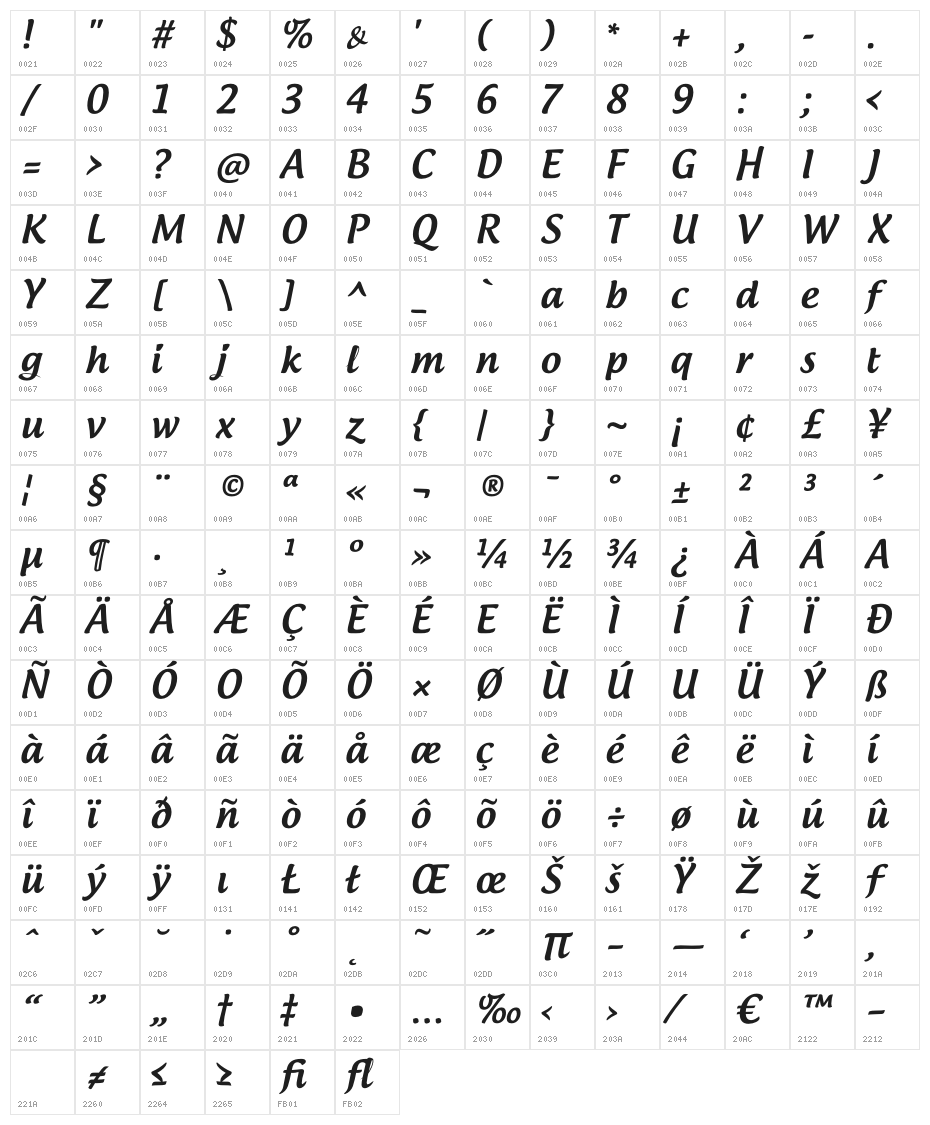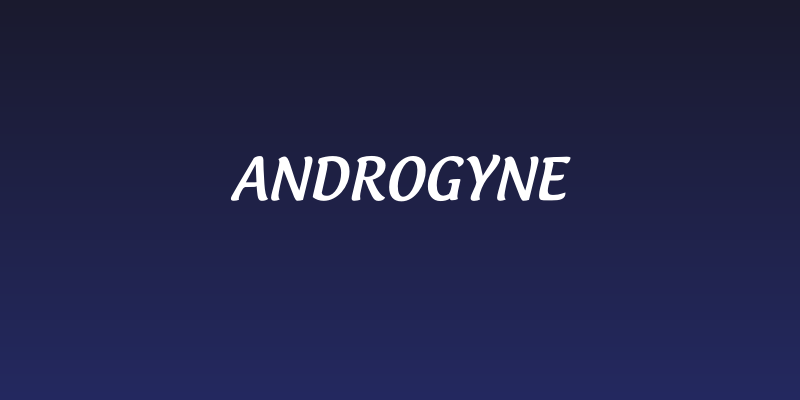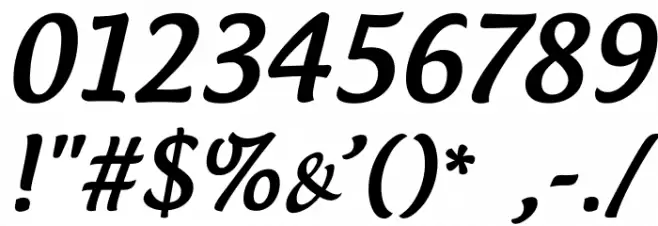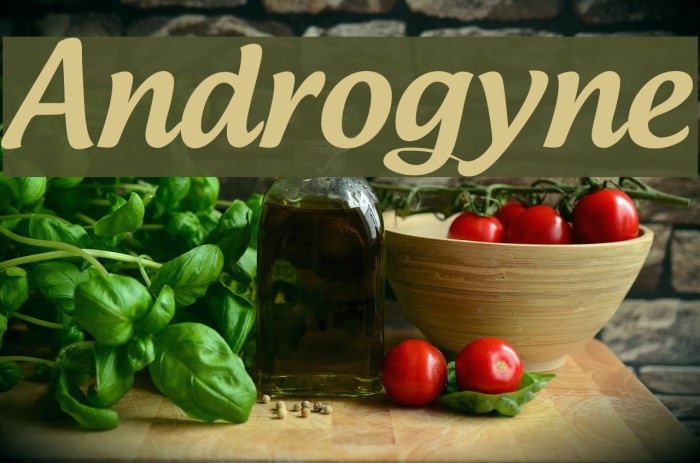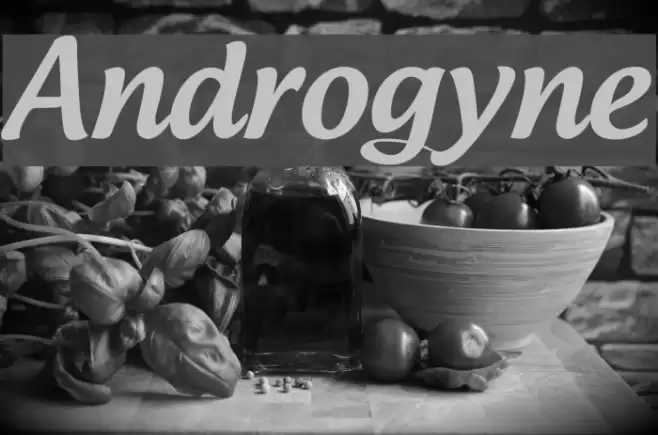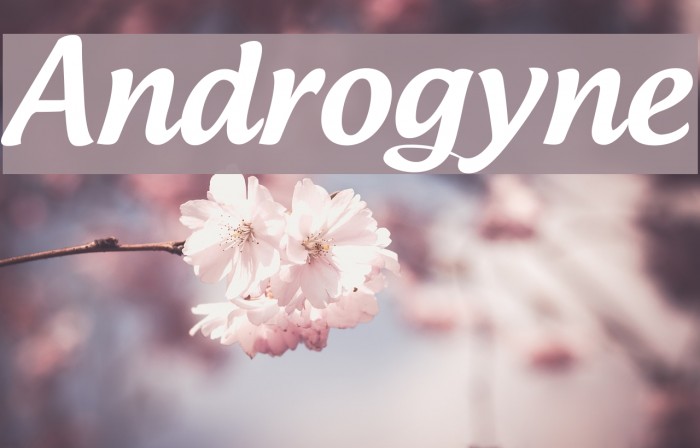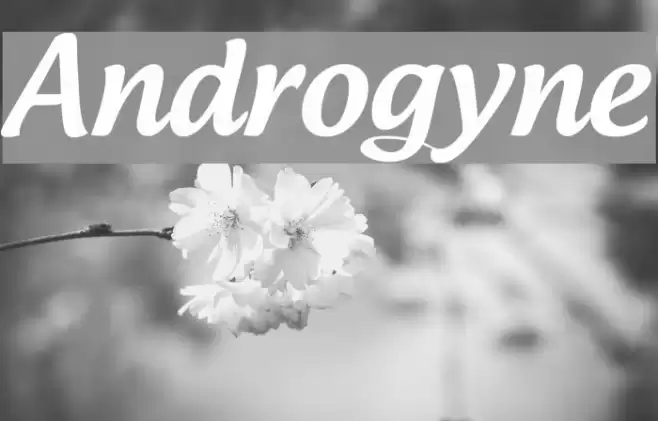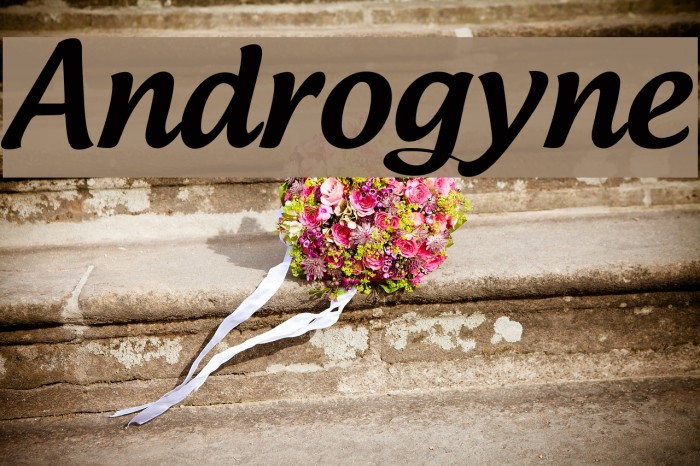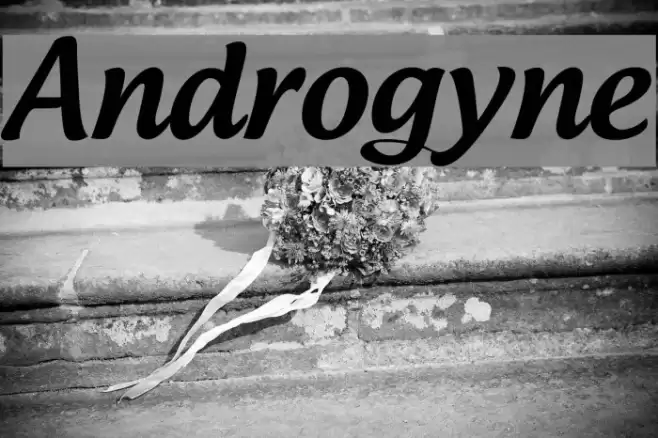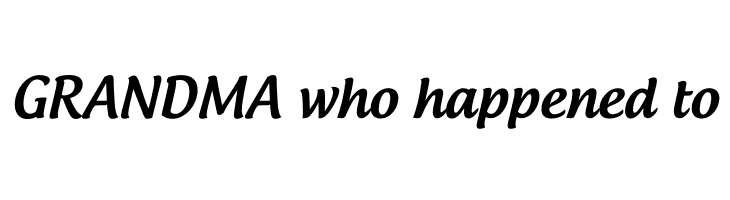
Androgyne Font
Androgyne Description
This font exhibits a dynamic and fluid style, characterized by its italicized and slightly slanted letterforms. The strokes are smooth and exhibit a medium contrast, giving it a lively and energetic appearance. The uppercase letters are bold and assertive, while the lowercase letters maintain a consistent flow, enhancing readability. The numerals are well-proportioned, complementing the overall design. Special characters are crafted with the same attention to detail, ensuring versatility across various applications. The font's playful yet sophisticated nature makes it suitable for a wide range of creative projects.
| Use Case | Logos, Headlines, Posters |
| Proposed Projects | Ideal for branding, advertising, packaging design, and editorial layouts. |